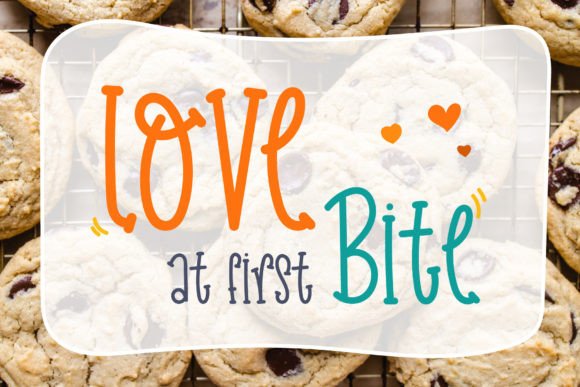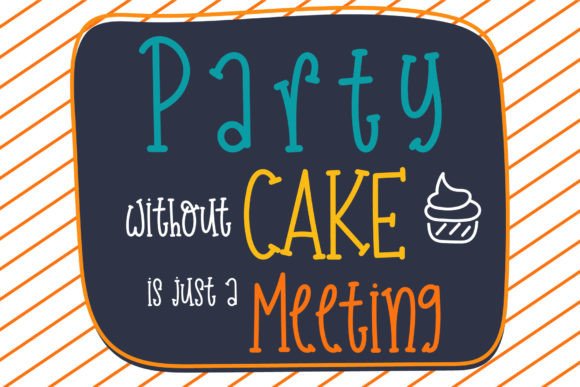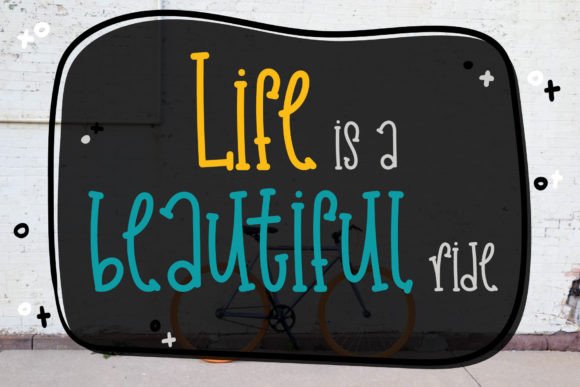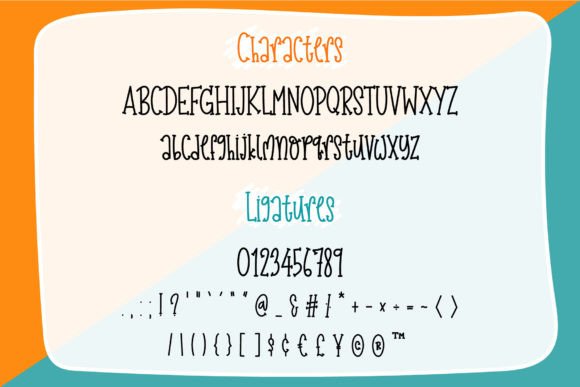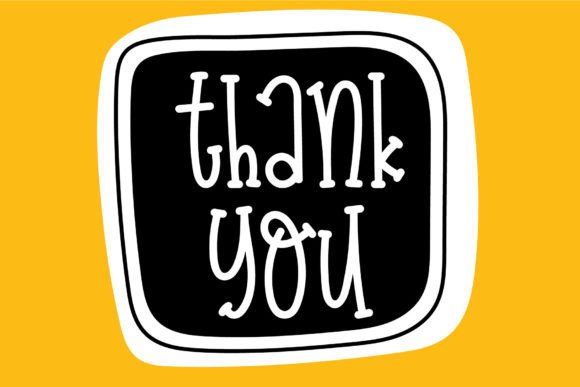
Halfway There Font
About Halfway There Font
Halfway There is a lively and playful handwritten font that exudes a sense of fun and creativity. Meticulously crafted with attention to detail, this font is a fantastic addition to your font library, offering versatility and the potential to enhance a wide range of creations.
Whether you’re working on projects related to various topics, the playful and lively nature of Halfway There makes it a wonderful asset. Its handwritten charm adds a personal touch to your designs, making them stand out with a unique and engaging flair.
With its neat craftsmanship and detailed design, Halfway There is well-suited for a variety of applications. From posters and banners to social media graphics and branding projects, this font has the potential to inject energy and playfulness into your creations.
Embrace the fun and playful vibe of Halfway There as you explore its possibilities in your design projects. Watch as it adds a delightful touch to your creations, making them more vibrant and captivating. Make this font a go-to choice whenever you want to infuse a sense of joy and creativity into your designs.